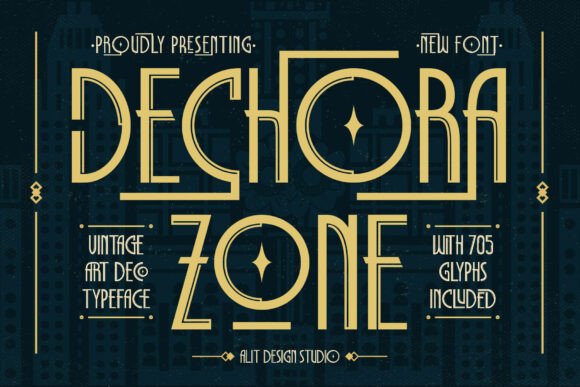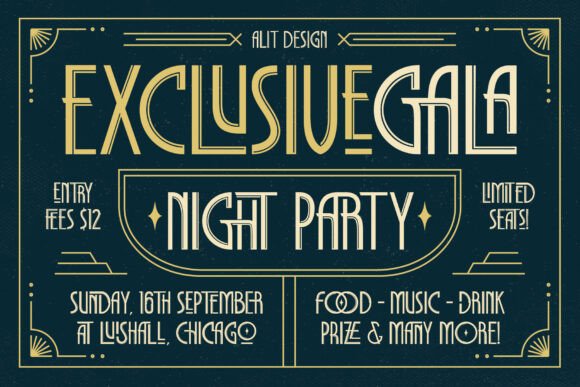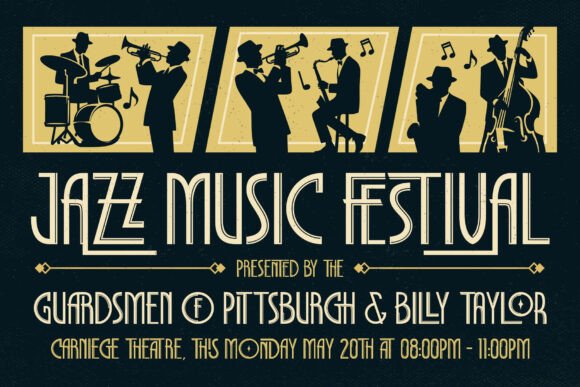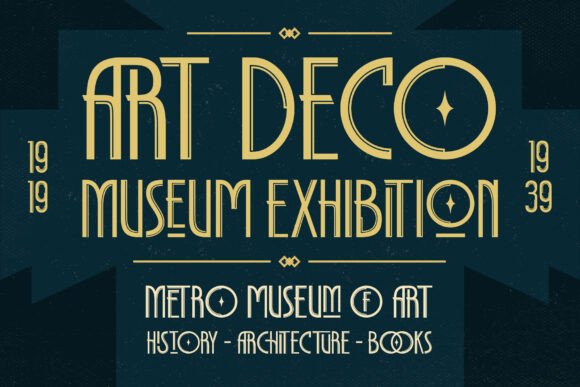
Dechora Zone Font
About the Dechora Zone Font
Crafted with precision, the Dechora Zone Font is ready to bring your ideas to life. Elevate your designs with Dechora Zone Typeface, a bold reimagining of Art Deco elegance. This typeface captures the iconic aesthetic of the Art Deco era, but with a modern twist—dynamic, flowing lines blend vintage charm with contemporary sophistication, making it truly one of a kind. Whether you’re designing for luxury branding, editorial layouts, event invitations, or packaging, Dechora Zone adds a touch of opulence and creativity that stands out in any project.
Dechora Zone excels in headline treatments, short text blocks, and logo design, lending a sophisticated and bold presence to luxury brands, fashion campaigns, and art-focused projects. Its strong verticality and geometric forms make it unsuitable for body copy or extended reading; the high contrast may strain readability in smaller sizes. Avoid using it for UI elements or applications requiring high legibility.
Pairing Dechora Zone with a clean sans-serif like Futura or a more delicate script font such as Playfair Display creates visual balance. For a bolder contrast, consider pairing it with a geometric sans-serif like Gotham. The chosen pairing should depend on the overall design goal – a classic or a more contemporary feel.
Dechora Zone projects an air of confident elegance and modern glamour. Its Art Deco heritage provides a distinctive visual identity, ideal for conveying luxury, sophistication, and a touch of vintage appeal.
Dechora Zone Font Usage Examples
Dechora Zone Font Example